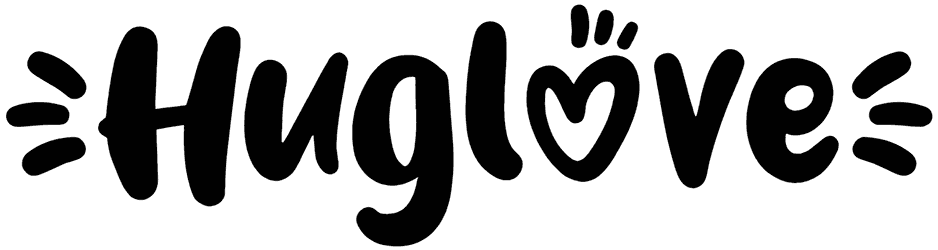
Huglove Font
Huglove is one of the best solutions to implement your ideas in friendship, romance, or girls, which can bring you a good experience of working in these fields.
The letter O in this cartoon font is designed like a heart with lines above it, which can be used as decoration. In addition, the handwritten nature of this love font will have a more significant effect on conveying human emotions and can bring much value to your writing.